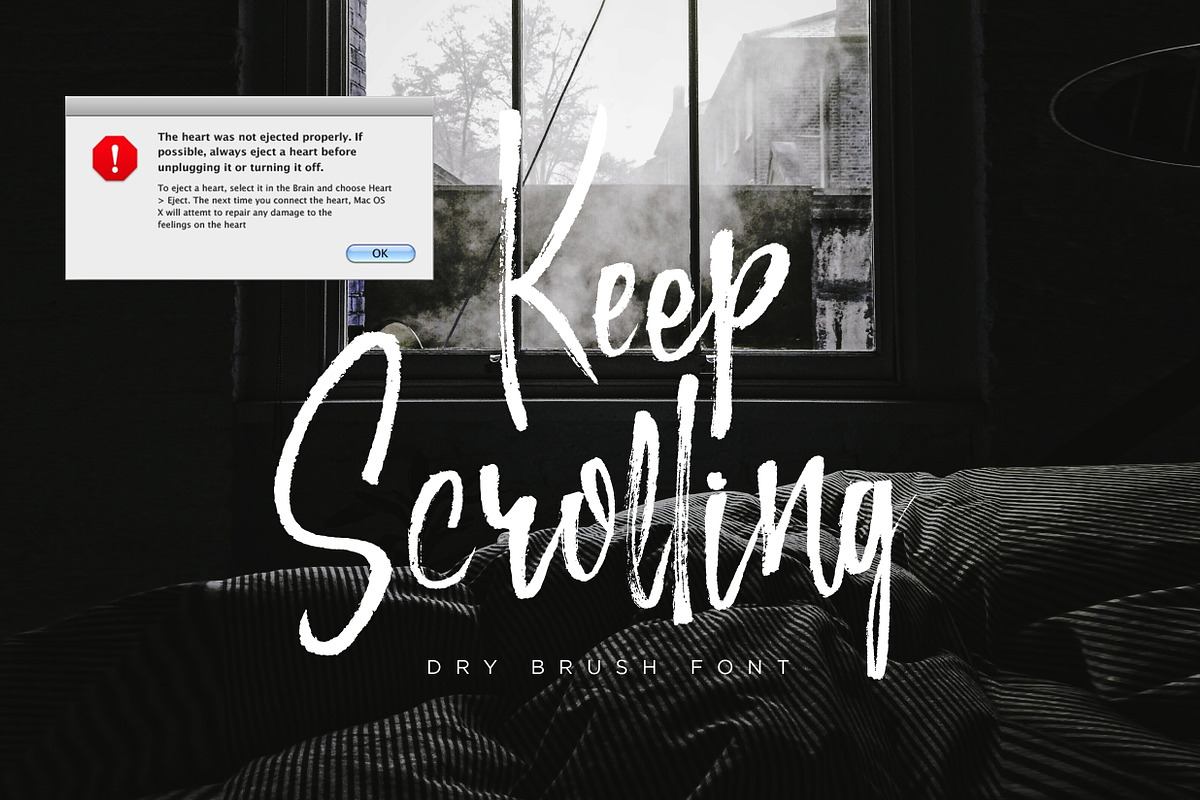
Keep Scrolling Handwritten Font Free Download is a casual and expressive script typeface that captures the feel of natural handwriting with a modern twist. With its smooth flow, playful curves, and relaxed personality, this font is perfect for social media posts, personal branding, quotes, blog headers, product packaging, and lifestyle content that calls for an authentic, approachable look.
Designed to be both stylish and legible, Keep Scrolling adds a human touch to your digital and print designs. It’s ideal for creatives who want their message to feel personal, relatable, and effortlessly cool.